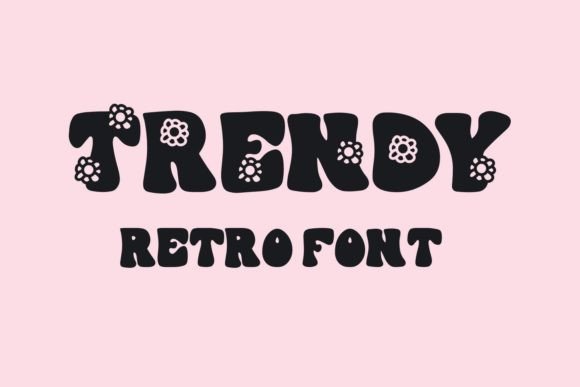
**Unleash Your Grooviest Designs with Trendy Font**
Embark on a nostalgic journey to the iconic era of peace, love, and rock 'n' roll with our enchanting Trendy Font! This retro-inspired masterpiece captures the carefree spirit of the hippie culture, ready to infuse your designs with a touch of groovy magic.
Crafted by the skilled hands of freelingdesignhouse, Trendy Font is a decorative font that exudes a vintage charm like no other. Its whimsical curves and playful strokes will transport you back to the days of bell-bottoms and psychedelic posters.
Whether you're creating retro-themed logos, eye-catching social media graphics, or simply adding a touch of nostalgia to your personal projects, Trendy Font has got you covered. Its versatility knows no bounds, allowing you to express your creativity in countless ways.
**Why Choose Trendy Font?**
* Dive into the groovy vibes of the 60s and 70s, evoking a sense of nostalgia and freedom.
* Create visually stunning designs that stand out from the crowd, capturing the attention of all who lay their eyes upon them.
* Express your individuality through unique fonts that reflect your personal style and aesthetic.
* Elevate your designs to the next level with our carefully crafted fonts, giving them a polished and professional touch.
* Join a community of creative minds who share a passion for groovy fonts and retro designs.
**Empower Your Designs Today**